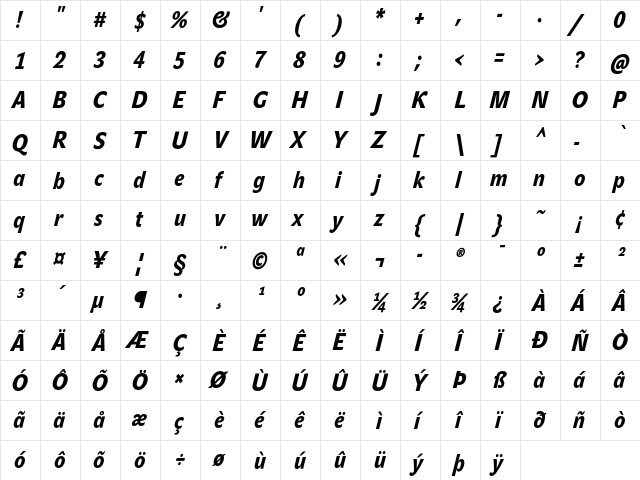
JohnSansCond Med Pro Bold Italic Font Preview
| Designer | Frantisek Storm |
Design Context for JohnSansCond Med Pro Typeface
JohnSansCond Med Pro takes a measured approach to typography — its balanced proportions and neutral character make it a reliable workhorse for both digital and print work. The dynamic lean of this cut emphasises speed and emphasis in any layout. The heavy weight commands attention and anchors typographic hierarchies. The condensed width makes it efficient for tight spaces without sacrificing legibility.
Pro Tip: Use JohnSansCond Med Pro for emphasis, pull quotes, and subheadings where its slanted energy can add rhythm to the layout.